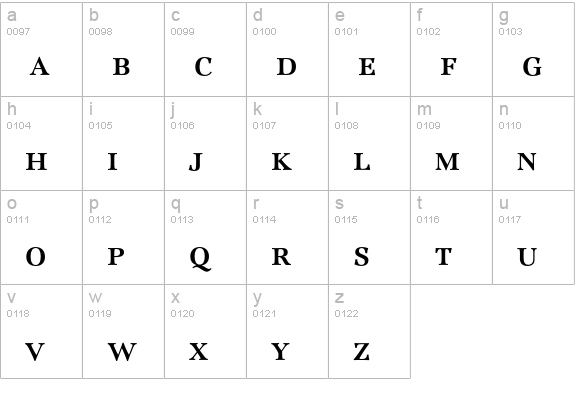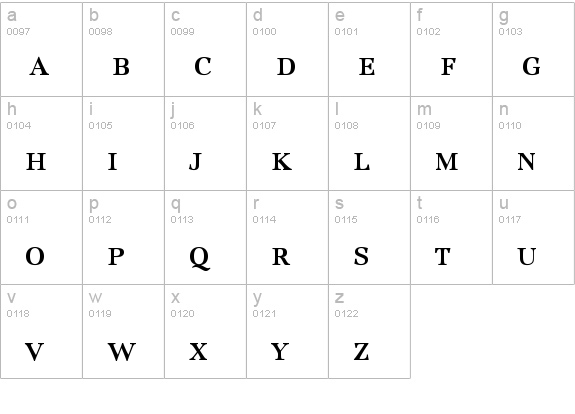
JamilleSCEF-Book Font Details
JamilleSCEF-Book is a comfortable, highly readable variant in the JamilleSCEF typeface family \xE2\x80\x94 well suited to long-form body text, articles, and editorial content.
Introducing JamilleSCEF-Book font, a stunning typeface that combines sophistication with a touch of playfulness. This versatile font is perfect for a wide range of design projects, from branding and advertising to editorial layouts and web design. JamilleSCEF-Book font features a unique blend of clean lines and elegant curves, resulting in a visually pleasing and highly legible typeface. Its balanced letterforms and generous spacing create a harmonious rhythm, ensuring a delightful reading experience for your audience. What sets JamilleSCEF-Book font apart is its accessibility. This font is freely available to download at FontsMarket.com, allowing designers, artists, and creatives from all walks of life to incorporate it into their projects without any limitations. Whether you're a seasoned professional or just starting out, JamilleSCEF-Book font offers endless possibilities to express your creativity. With its extensive character set, JamilleSCEF-Book font supports multiple languages, making it suitable for international projects. Its versatility shines through in both headline and body text applications, providing the perfect balance between impact and readability. Whether you're designing a logo, creating a magazine layout, or crafting a digital interface, JamilleSCEF-Book font will elevate your work to new heights. Its timeless elegance and contemporary appeal make it a go-to choice for designers seeking a font that exudes sophistication and charm. Experience the freedom of expression with JamilleSCEF-Book font, freely available to download at FontsMarket.com. Unleash your creativity and bring your designs to life with this exceptional typeface.